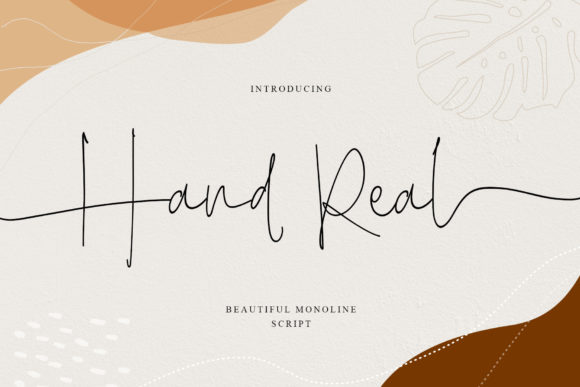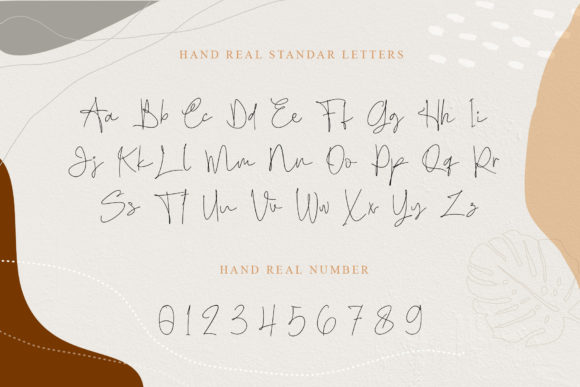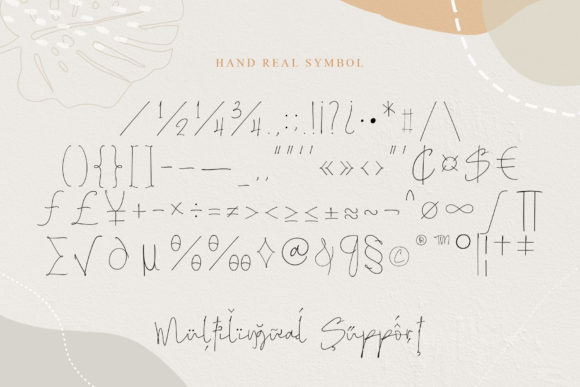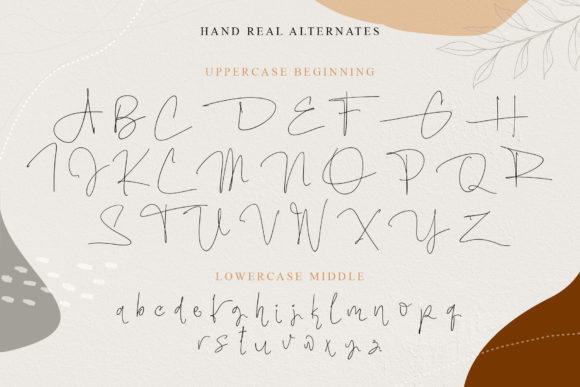
Hand Real Font: Elegant Monoline Script for Wedding Invitations & Branding
About the Hand Real Font
Crafted with precision, the Hand Real Font is ready to bring your ideas to life. Hand Real is a thin and fashionable handwritten font. Fall in love with its incredibly versatile style and use it to create gorgeous wedding invitations, beautiful stationary art, eye-catching social media posts, and much more!
Hand Real’s delicate thin strokes make it ideal for projects requiring a touch of elegance and sophistication, such as wedding invitations, branding for luxury goods, or high-end stationery. It excels in short, impactful headlines and displays where its stylish character can shine. However, its thin weight limits its readability in body text or long paragraphs, and it’s not suitable for UI applications or situations requiring high legibility.
Pairing Hand Real with a clean sans-serif like Montserrat or a classic serif such as Garamond will create a balanced and sophisticated look. For a more modern feel, consider pairing it with a geometric sans-serif font like Futura. The contrast will enhance both fonts’ unique characteristics.
Hand Real projects a feeling of refined elegance and understated charm, making it perfect for brands focused on quality, craftsmanship, or romantic concepts. Avoid using it for projects requiring strong boldness or high impact at small sizes.
Hand Real Font Usage Examples
Hand Real Font Example